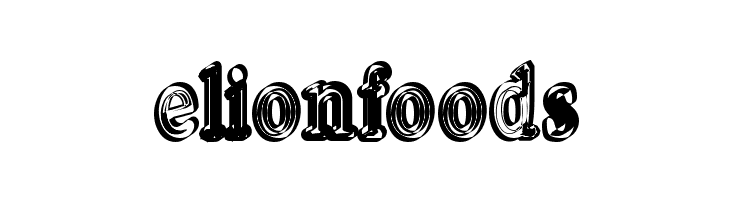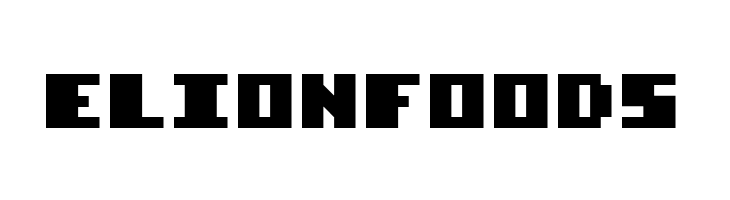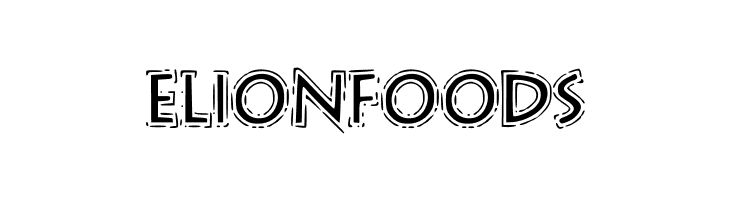
A vintage-inspired font with a handcrafted, whimsical style.
A hand-drawn, vintage-style font with sketch-like, decorative elements.
A modern, clean sans-serif font with uniform strokes and a slightly condensed form.
A bold, decorative font with a layered, three-dimensional effect.
A playful, handwritten font with rounded edges and an energetic flow.
A bold, decorative Gothic font with intricate detailing and historical elegance.
A bold, geometric font with a blocky, pixelated style.